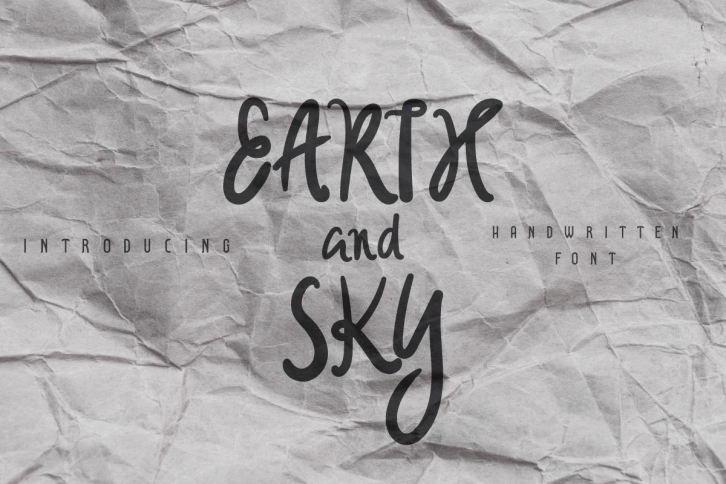
Earth and Sky is a laid back, handwritten font that works great for blog headers, quotes, posters or invitations. Include uppercase, lowercase and numerals.